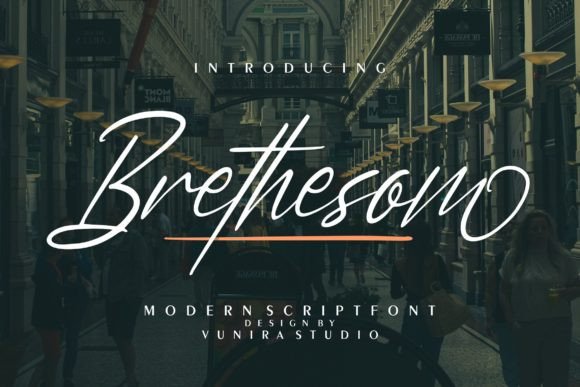
Indulge in the ethereal beauty of Brethesom, a script font that evokes the artistry of hand-drawn masterpieces. Each character dances across the page with graceful curves and delicate strokes, creating a mesmerizing effect that captivates the eye.
Brethesom's allure lies in its versatility, seamlessly adapting to a myriad of creative projects. Its whimsical nature lends itself to personalized stationery, where your letters become cherished mementos adorned with a touch of elegance. Let your imagination soar as you craft enchanting invitations that whisper secrets of special occasions.
This extraordinary font finds its true calling when it graces the skin as the ultimate form of self-expression. Brethesom's intricate lines and flowing curves transform tattoos into captivating works of art, where personal stories are etched in a language that transcends words.
For those seeking fonts that ignite the imagination, Brethesom stands as an undeniable choice. Its ethereal charm captivates the senses, inviting you to create designs that resonate with beauty and originality. Embrace the allure of this exquisite script and let your creativity blossom like never before.